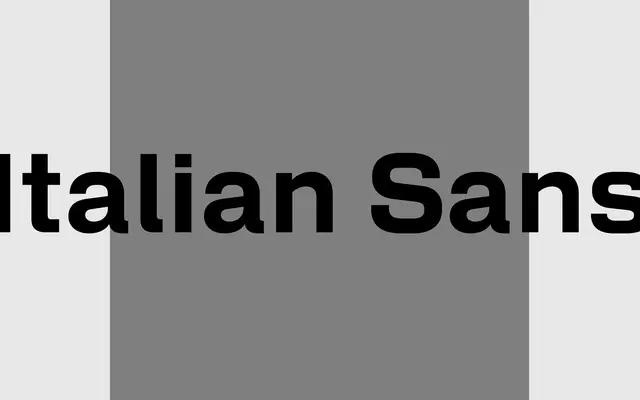
Italian Sans specimen from A2-Type
A wide industrial grotesque drawn from 20th-century vernacular lettering specimens held at Central Saint Martins' Central Lettering Archive.
Sourced from historical specimens at the Central Lettering Archive at Central Saint Martins in London, the family carries the broad proportions and blunt character of 20th-century industrial signage lettering. Five weights run from Light to Bold, and a condensed subfamily extends its range to tighter settings. There are no italics, keeping it close to its vernacular origins.
A wide, industrial grotesque drawn from 20th-century vernacular lettering specimens, placing it firmly in the industrial grotesque tradition rather than more refined humanist or geometric strands.